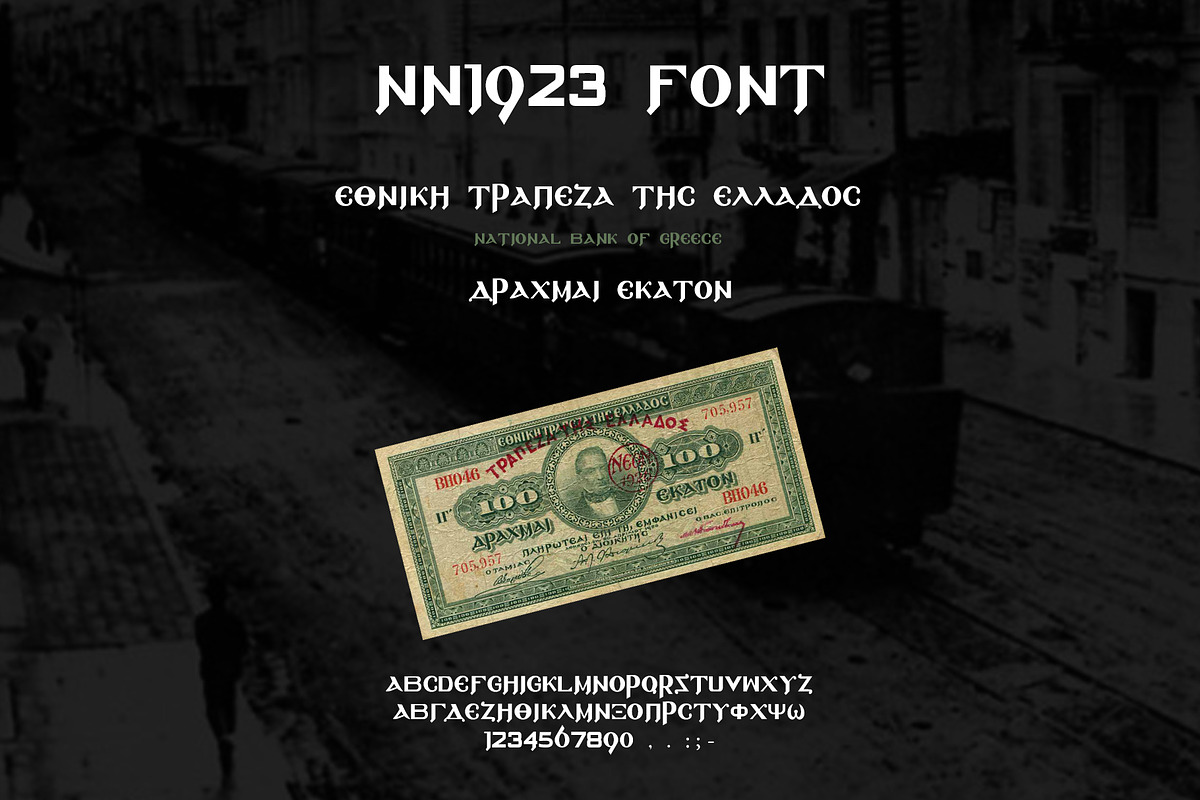
NN1923 - A Greek vintage font
Hello. Here is my new font NN1923. It is a font based on a 1923 Greek banknote. It contains ONLY Capital letters, numbers and 5 symbols. I can add more symbols in the future if you like. Thank you.
Αγγλική & ελληνική γραμματοσειρά μόνο με κεφαλαία γράμματα, αριθμούς και 5 σύμβολα. Εμπνευσμένη από το χαρτονόμισμα των 100 δραχμών του 1923. Ευχαριστώ.
- It contains ONLY Capital letters, numbers and 5 symbols.